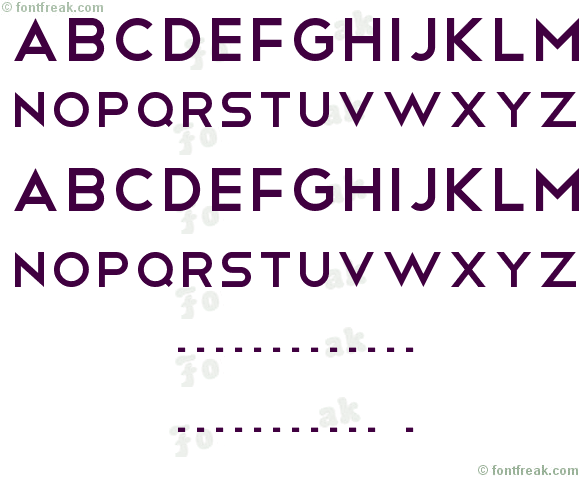
Telegrafico
About Telegrafico
Telegrafico, designed by Salvo Nicolosi in 2006, is a striking display font that embodies a modern, geometric style. This sans-serif typeface is characterized by its clean lines and bold letterforms, making it an excellent choice for a variety of design projects. The font features a consistent stroke weight that adds to its robust appearance, while its minimal contrast allows for easy readability in both large and small sizes. The letters are well-spaced, offering clarity and balance, which enhances its overall aesthetic appeal.
Ideal for dynamic applications, Telegrafico shines in use cases such as attention-grabbing headlines, vibrant promotional materials, and modern branding projects. Its unique character makes it particularly suitable for event posters, restaurant menus, and fashion advertisements, where a contemporary look is essential. Additionally, this font can be effectively utilized in digital designs, such as website headers or social media graphics, appealing to content creators looking for a stylish yet versatile typeface.
What sets Telegrafico apart is its ability to combine simplicity with a modern flair, making it a go-to choice for those seeking a font that captures attention without overwhelming the viewer. Whether you’re aiming to convey elegance in a wedding invitation or create excitement in a product launch, the Telegrafico font free download provides an excellent option for contemporary design needs. With its striking visual characteristics and versatile applications, Telegrafico is a valuable addition to any designer’s toolkit.